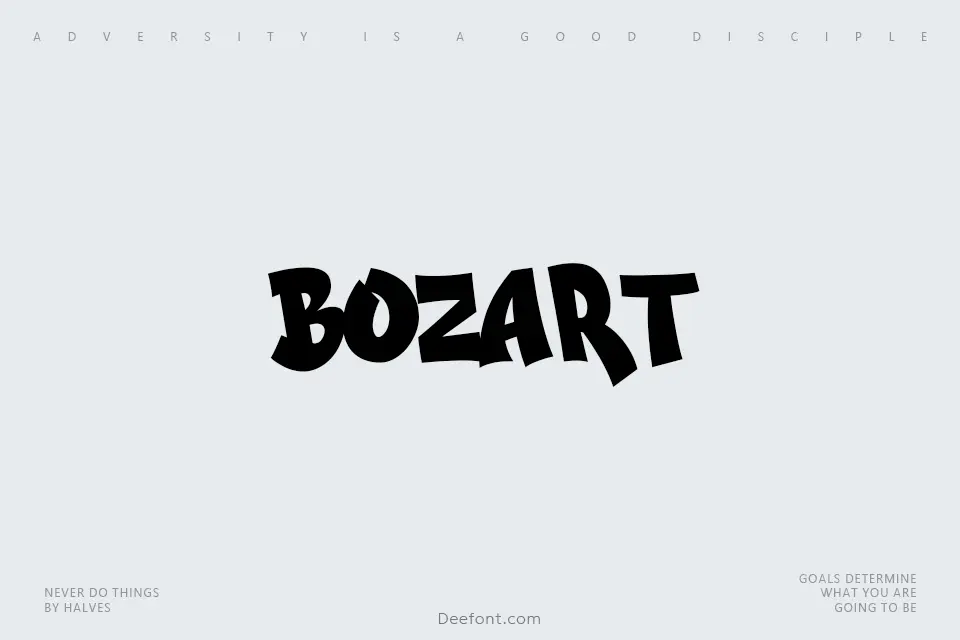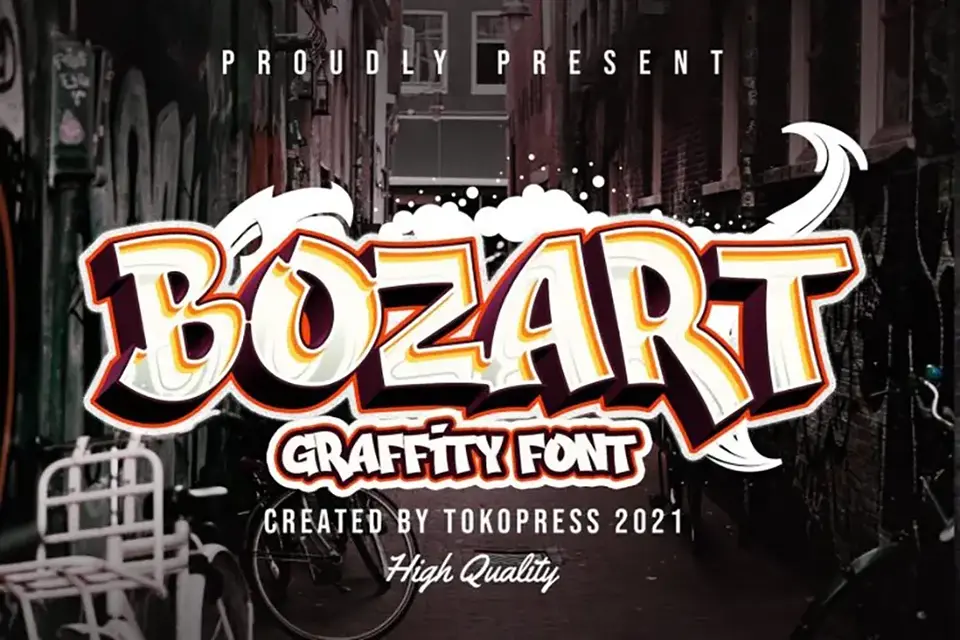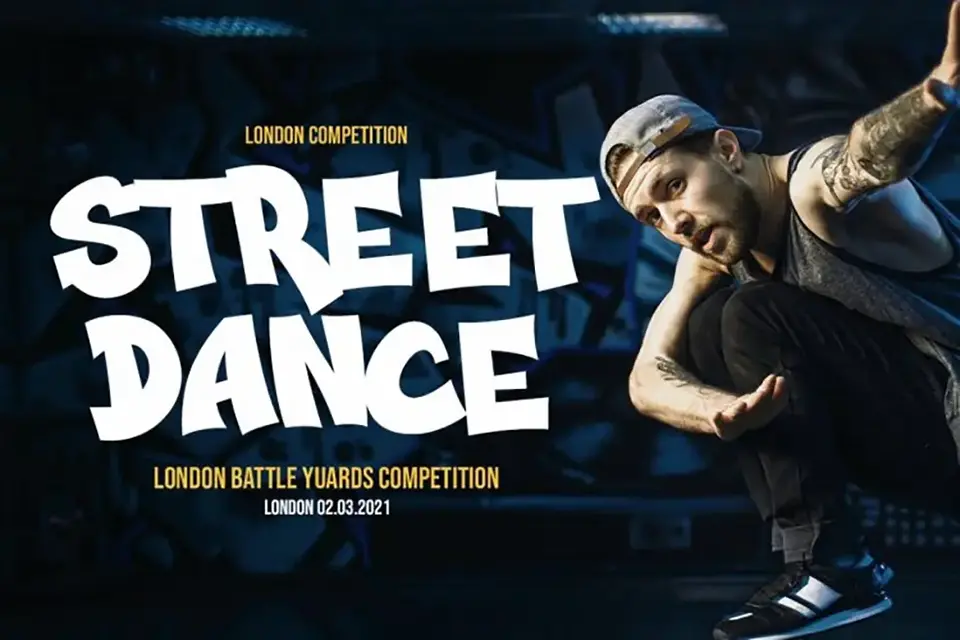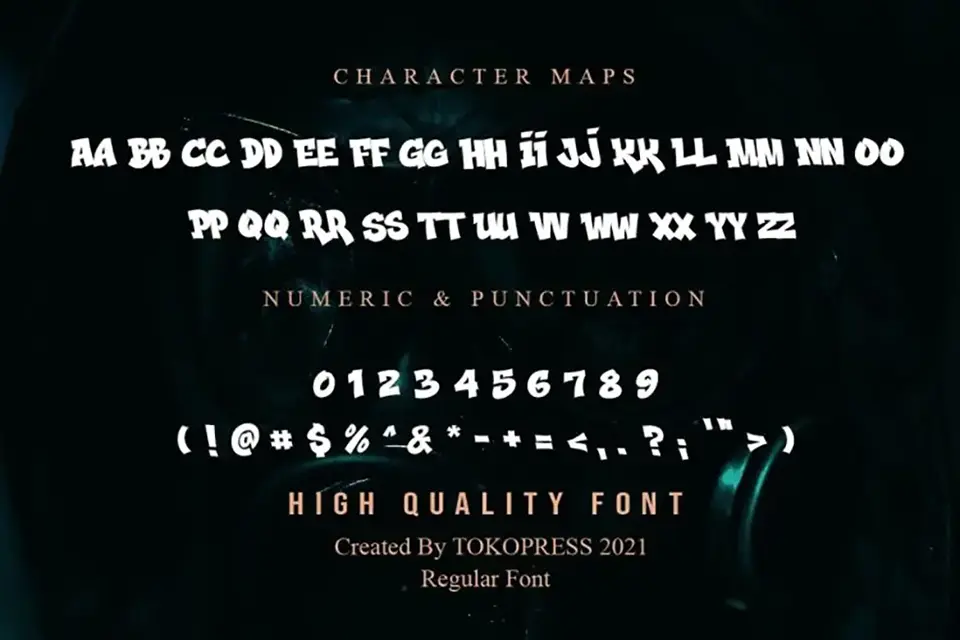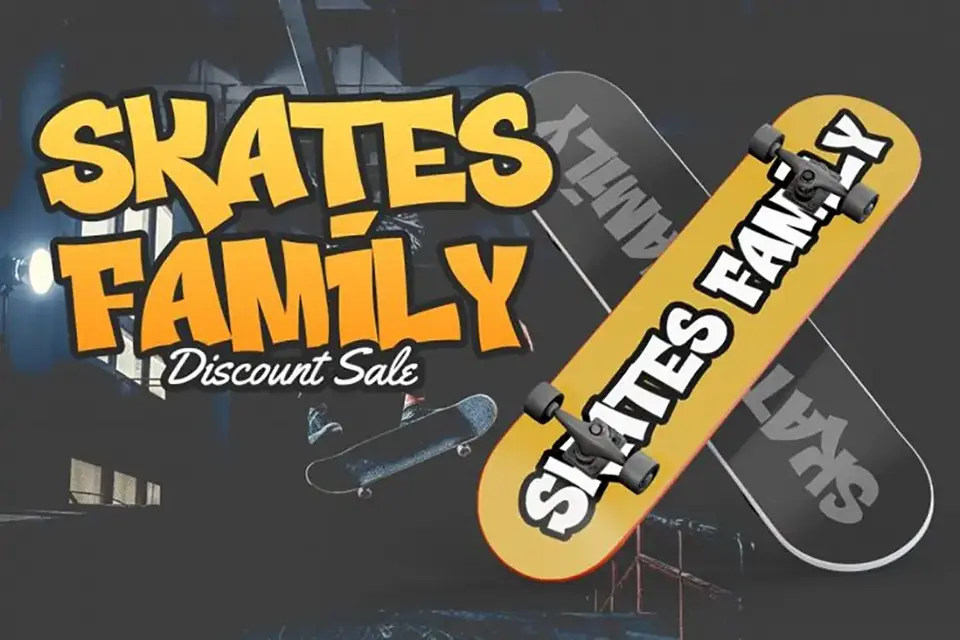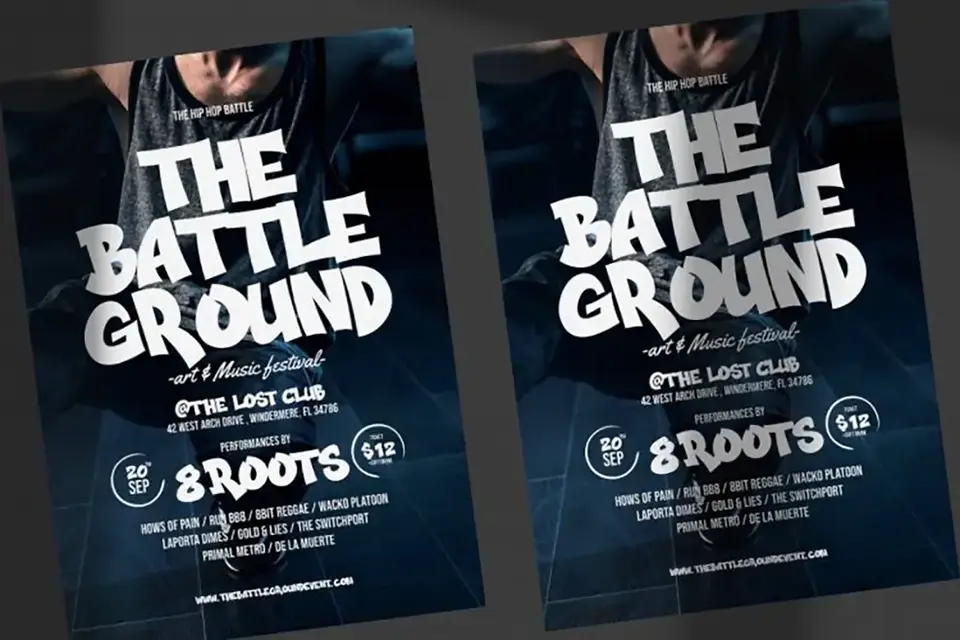
Bozart Font
Bozart is a bold graffiti-inspired display font created with thick strokes, sharp edges, and striking three-dimensional effects that bring street art vibrancy to digital design. Featuring colorful outlines and layered shadows, this handcrafted typeface captures the rebellious essence of graffiti while maintaining excellent readability. Perfect for designers seeking to infuse personality and urban flair into logos, posters, social media graphics, and branding projects targeting youthful, modern audiences.